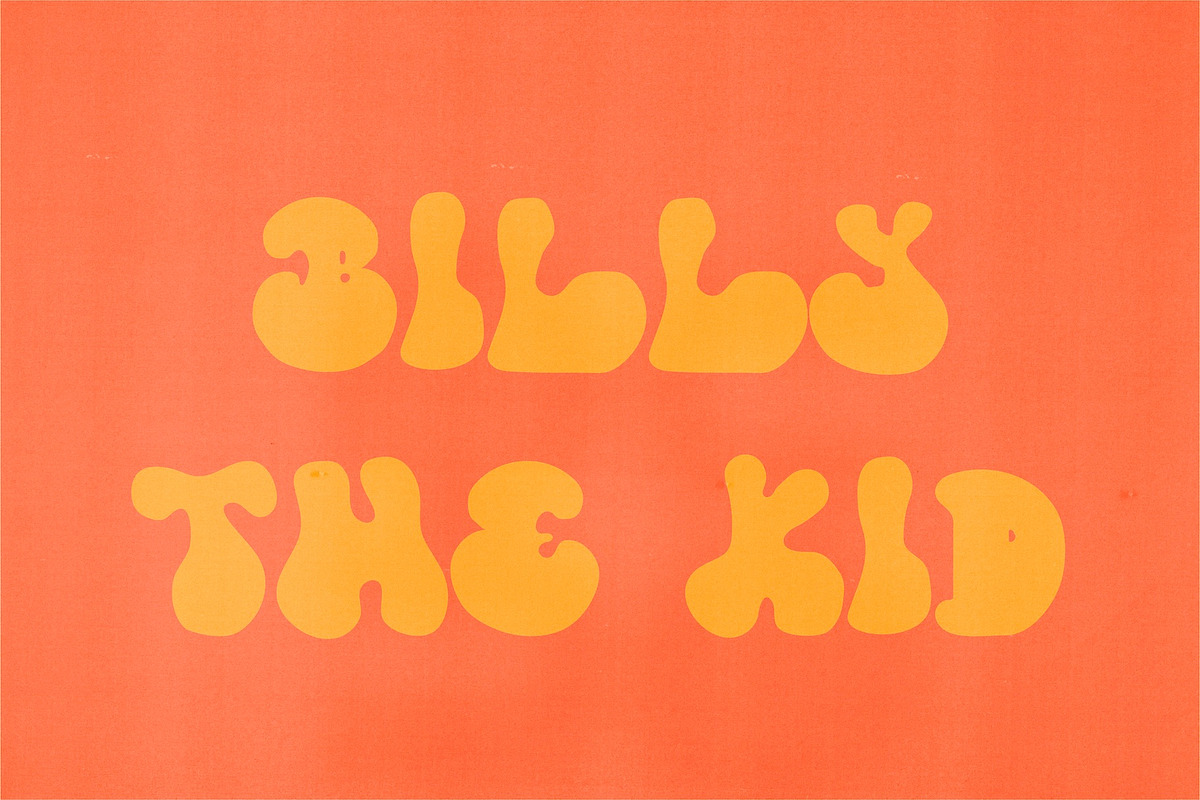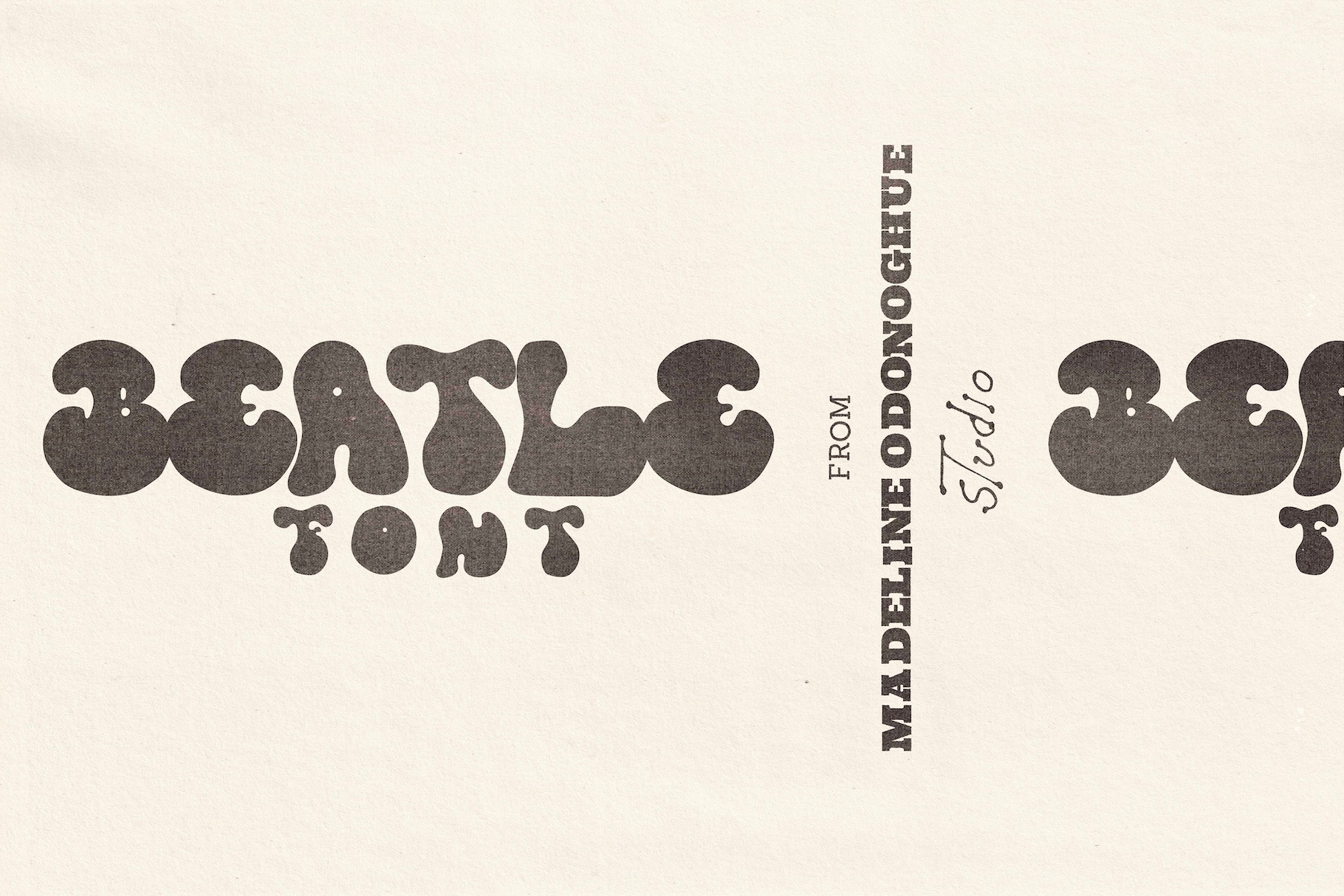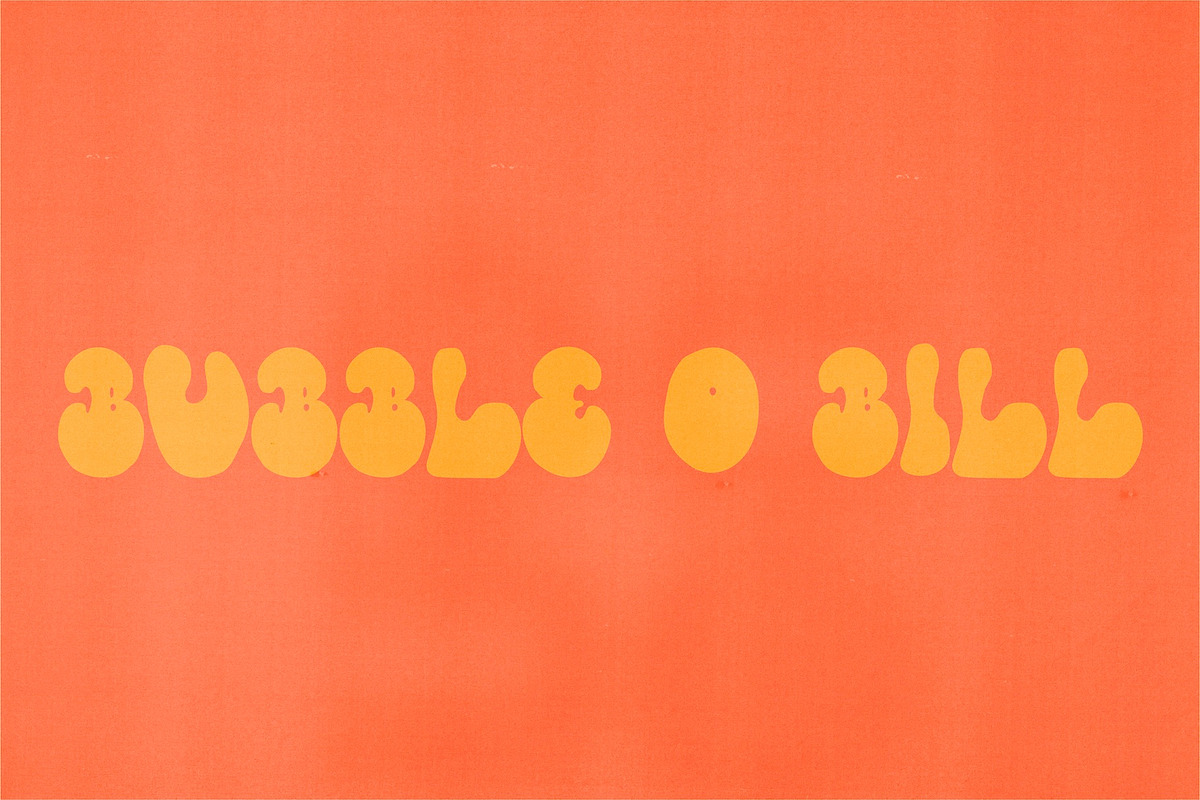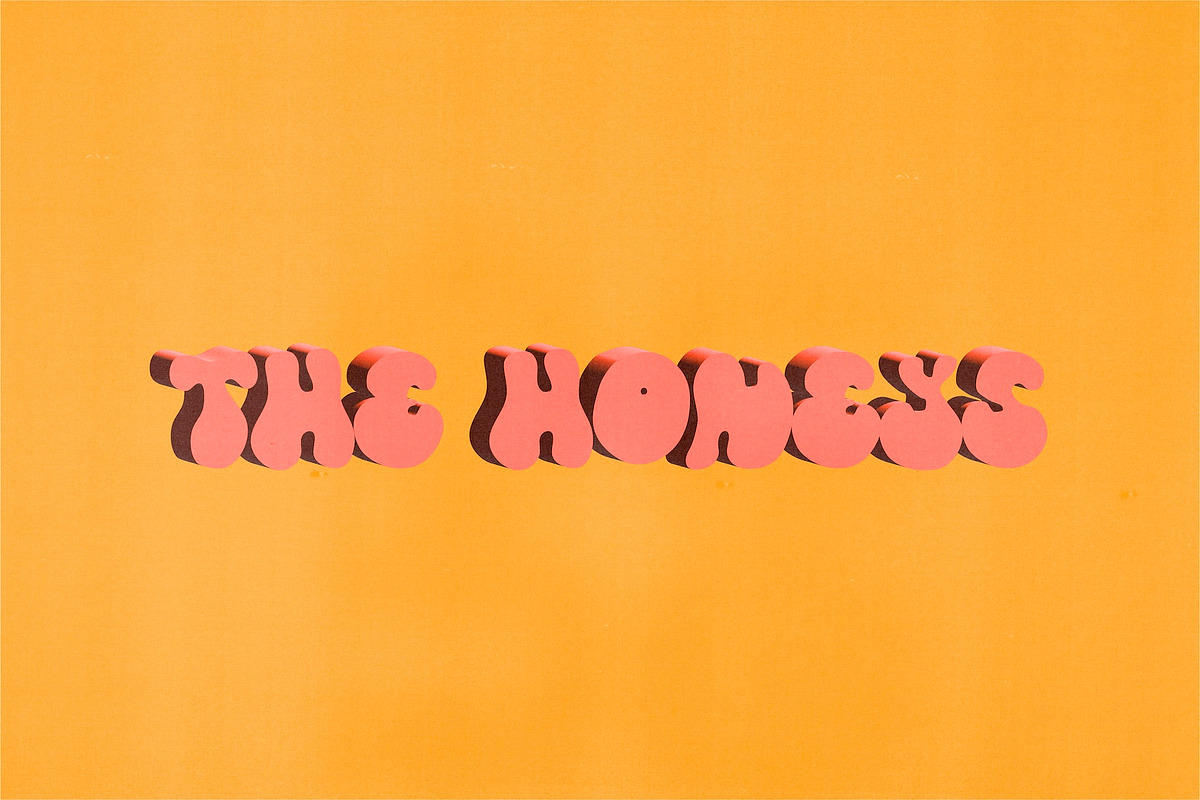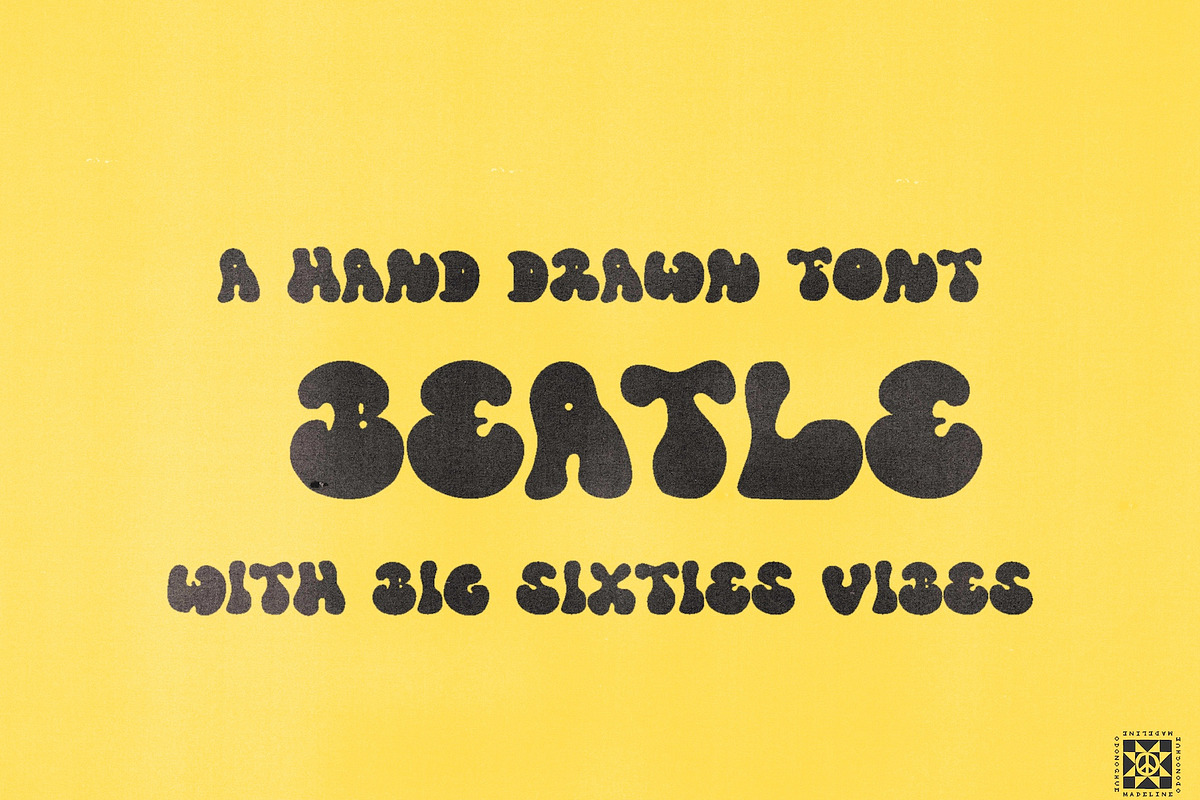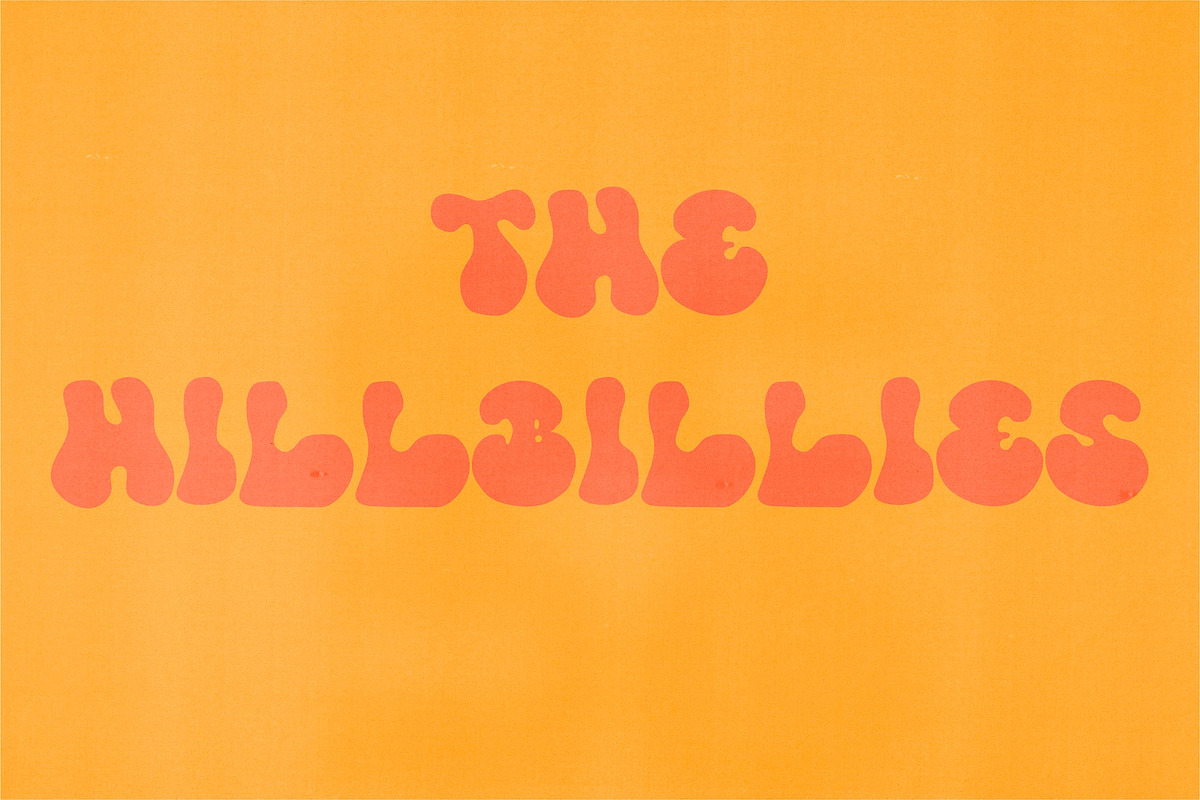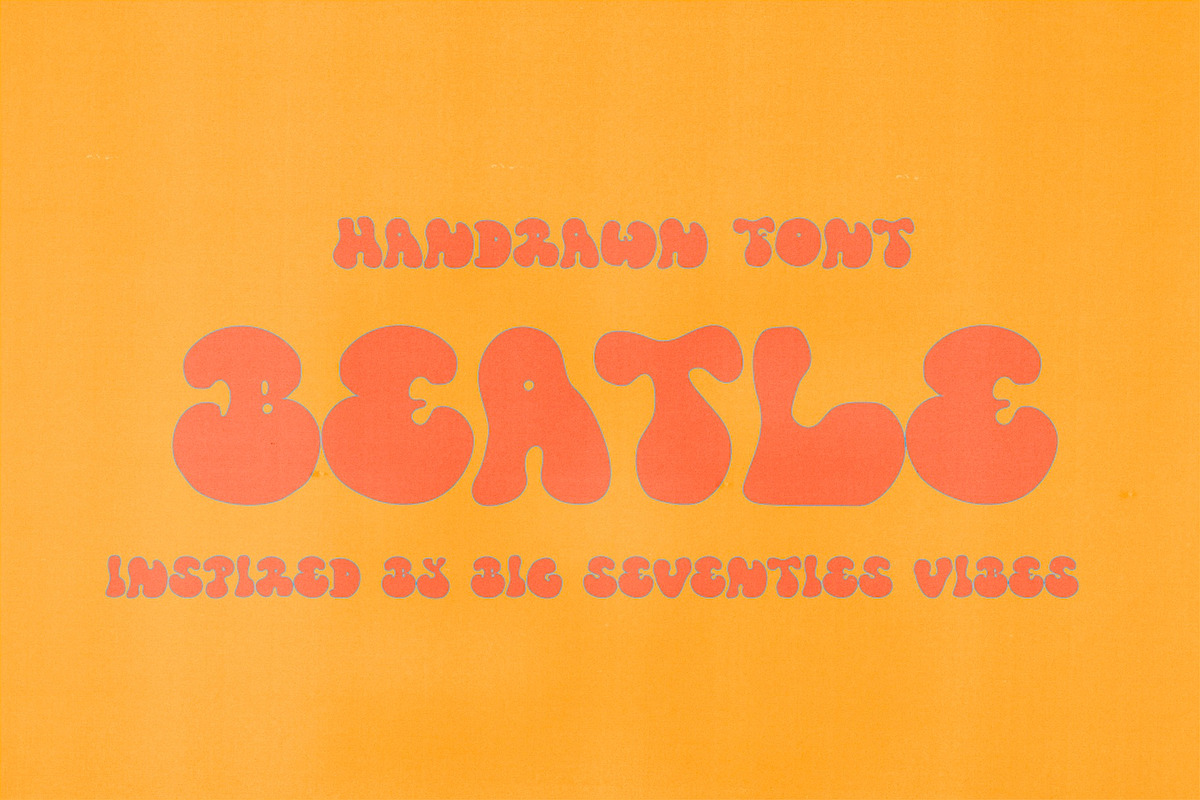
Beatle Hand Drawn Retro Font
Beatle is an all-caps, hand-drawn bubble font with oversized, slightly off-center shapes and a chunky, blown-up feel. Its playful, imperfect wobble gives it personality and charm, capturing the bold, free-spirited energy of 1970s design.
This font doesn’t aim for precision — it celebrates the hand-drawn, organic energy that brings warmth, nostalgia, and character to any project, perfect for designs that need to feel big, loud, and human.
A–Z uppercase letters only (NO lowercase, numbers, or punctuation)
Designed as a display/logo-focused font — intentionally all caps
70s-inspired posters, album covers, and music merch
Chunky, handmade branding and logo work
Vintage festival flyers, zines, and retro packaging
Social media graphics that need bold personality
DIY-style projects, craft branding, and nostalgic design
Beatle is about impact, not polish. Use it anywhere you want that playful, oversized bubble energy — perfect for making your words shout, sing, and stand out.